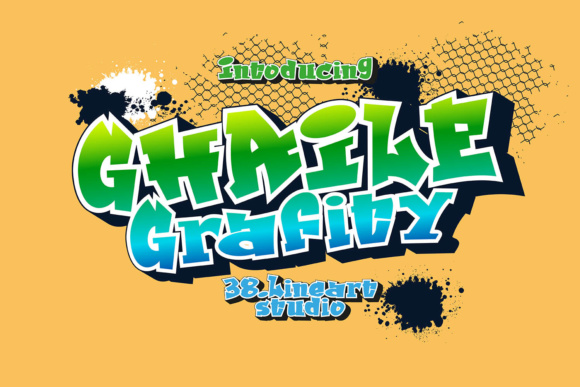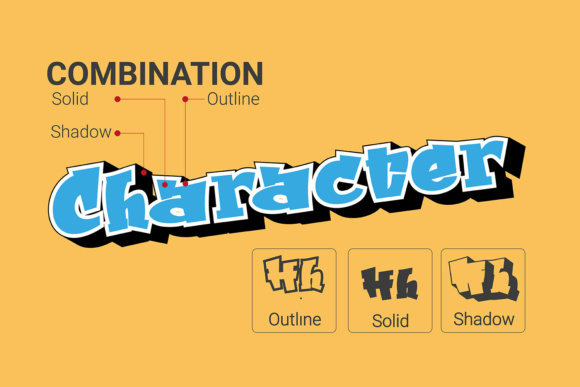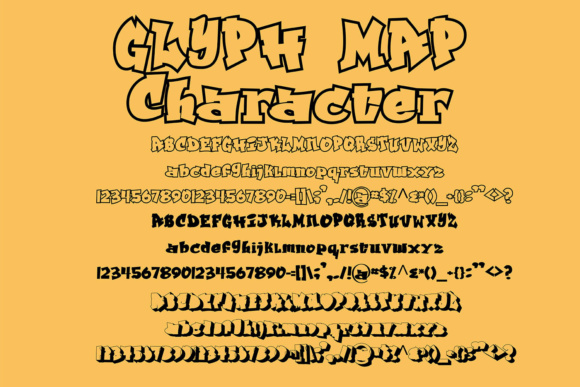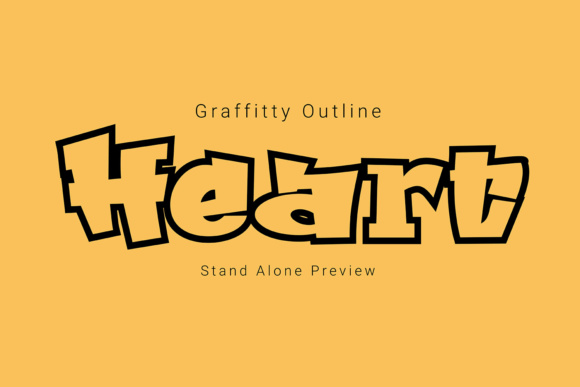
Ghaile Grafiti Font
About the Ghaile Grafiti Font
Welcome to the world of Ghaile Grafiti Font, a typeface that will inspire your next great project. The Ghaile Grafiti is a graffiti style handwritten font. It includes three variations to give you the ultimate package. Mix these three styles to create a real graffiti style.
The Outline version has a fix keening as a single text. It’s great for crafting designs. If you use the solid version you have to set glyph tracking to -70 (A/V:-70).
Ghaile Grafiti excels in headline applications, short impactful statements, posters, and branding projects where a bold, rebellious aesthetic is desired. Its three variations allow for dynamic text layering, ideal for creating visually interesting logos or graffiti-inspired artwork. Avoid using it for body text or lengthy paragraphs; the irregular letterforms hinder readability at smaller sizes.
Consider pairing Ghaile Grafiti with a clean sans-serif like Montserrat for contrast, or a geometric sans-serif like Futura for a more modern, structured feel. For a softer balance, a simple serif like Lora can add a touch of sophistication, tempering the font’s raw energy.
The Ghaile Grafiti font projects a raw, energetic, and undeniably rebellious personality. Its versatility in style allows for both edgy and playful applications, making it suitable for brands targeting a youthful or street-style audience.
Ghaile Grafiti Font Usage Examples
Ghaile Grafiti Font Example